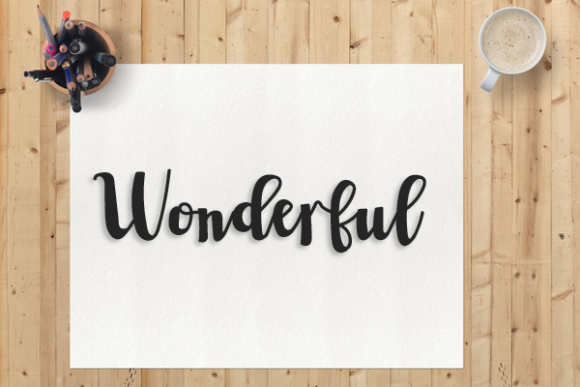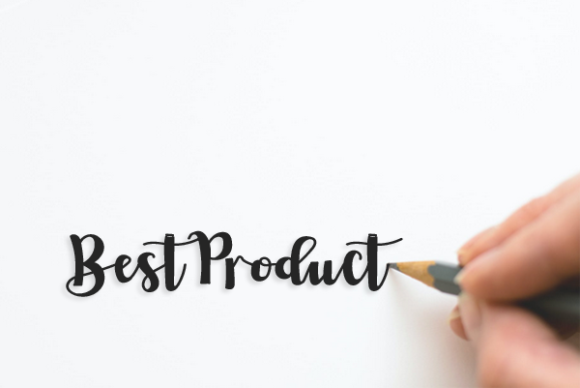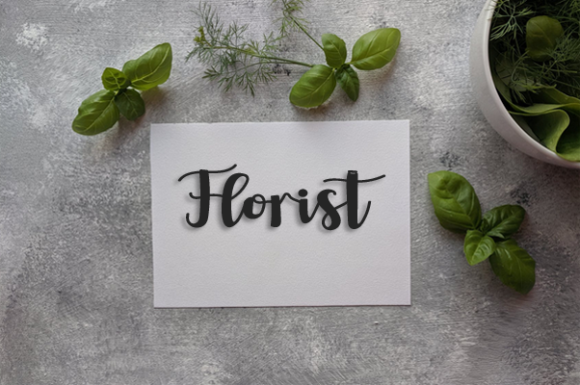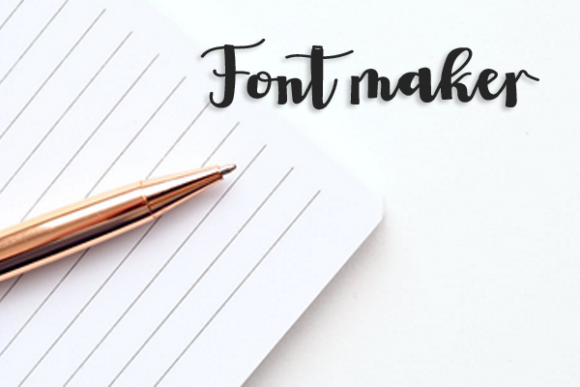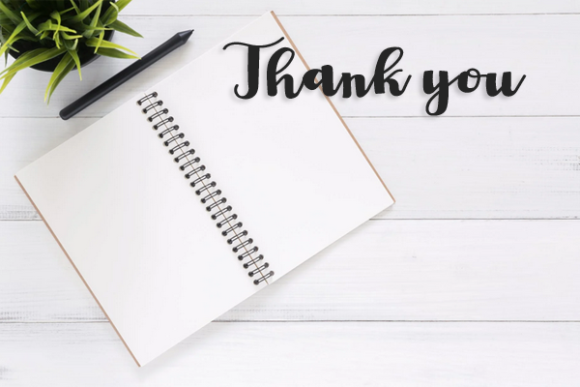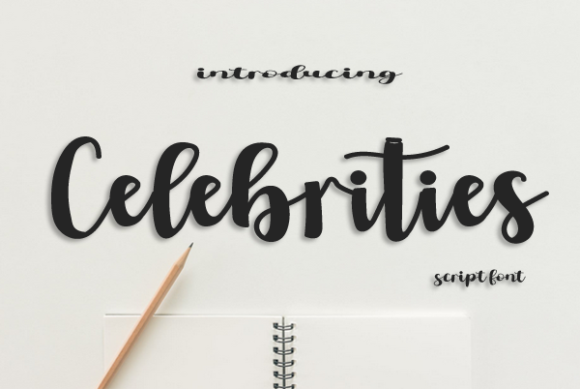
Celebrities Font: The Timeless Handwritten Font for Stunning Designs
Are you a designer or crafter looking for a font that can add a touch of elegance and sophistication to your designs? Look no further than Celebrities Font, a lovely and timeless handwritten font that is perfect for creating eye-catching logos, branding, and quotes.
What Makes Celebrities Font Special?
Celebrities Font is a unique and beautiful font that stands out from the rest. Every letter has a distinctive and elegant touch that will make your design come alive. The font’s handwritten style gives it a personal and organic feel that is perfect for creating designs that are both modern and timeless.
Celebrities Font is the perfect choice for creating stunning logos, branding, and quotes. Its elegant and sophisticated style makes it ideal for businesses and individuals looking to create a professional and memorable brand identity. Whether you’re looking to create a logo, business card, or social media graphic, Celebrities Font is the perfect font for the job.
Unique and Beautiful Touch
One of the things that sets Celebrities Font apart from other fonts is its unique and beautiful touch. Every letter has been carefully crafted to ensure that it is both elegant and legible. The font’s unique style makes it perfect for creating designs that are both eye-catching and memorable.
Why Choose Celebrities Font?
There are many reasons why designers and crafters choose Celebrities Font for their designs. Here are just a few:
- Timeless style: Celebrities Font has a timeless style that will never go out of fashion.
- Elegant and sophisticated: The font’s elegant and sophisticated style makes it perfect for creating professional and memorable designs.
- Unique and beautiful touch: Every letter has a unique and beautiful touch that will make your design stand out.
- Perfect for logos, branding, and quotes: Celebrities Font is perfect for creating stunning logos, branding, and quotes.
How to Use Celebrities Font
Celebrities Font is easy to use and can be incorporated into a variety of design projects. Here are a few tips for using the font:
- Use it for logos and branding: Celebrities Font is perfect for creating stunning logos and branding materials.
- Use it for quotes and posters: The font’s elegant style makes it perfect for creating eye-catching quotes and posters.
- Experiment with different colors and textures: Celebrities Font looks great in a variety of colors and textures, so don’t be afraid to experiment.
Celebrities Font is a timeless and elegant handwritten font that is perfect for creating stunning designs. Its unique and beautiful touch makes it stand out from the rest, and its elegant style makes it perfect for creating professional and memorable designs. Whether you’re a designer or crafter, Celebrities Font is the perfect choice for your next design project.
Here are a few tips for designers and crafters who want to get the most out of Celebrities Font:
- Use it in combination with other fonts: Celebrities Font looks great when used in combination with other fonts, so don’t be afraid to experiment.
- Pay attention to spacing and kerning: The font’s elegant style makes it important to pay attention to spacing and kerning to ensure that your design looks professional.
- Use it for a variety of design projects: Celebrities Font is versatile and can be used for a variety of design projects, from logos and branding to quotes and posters.